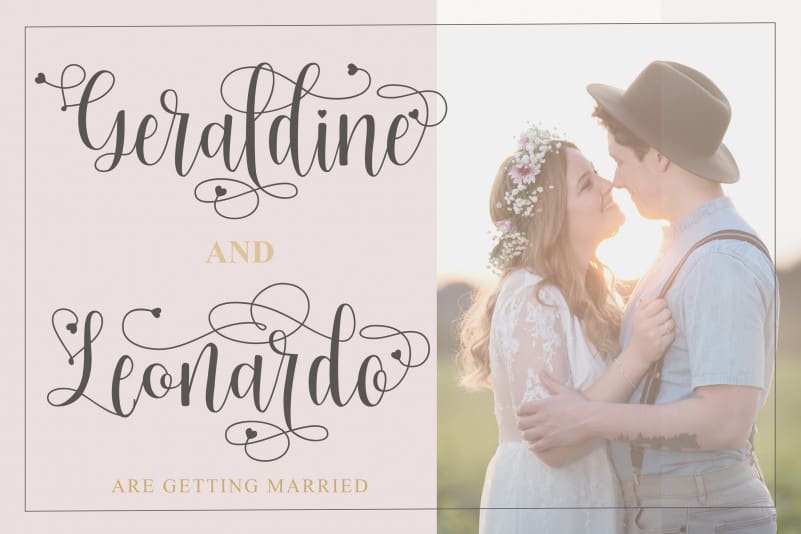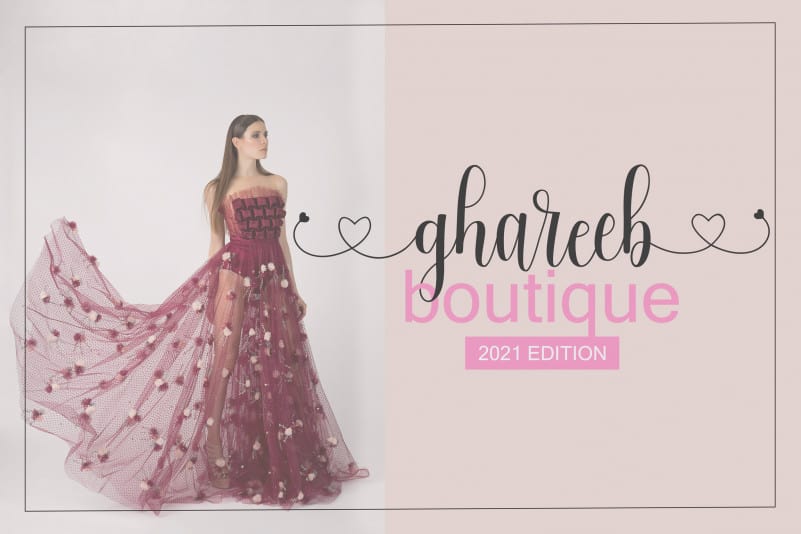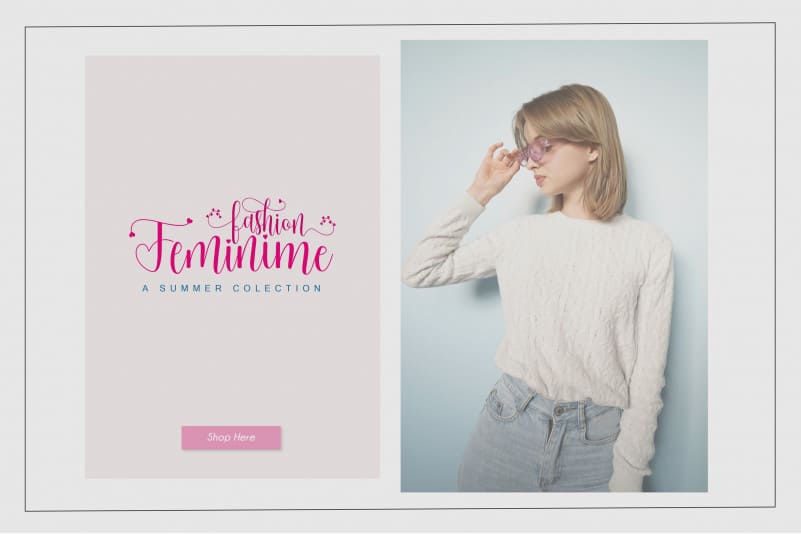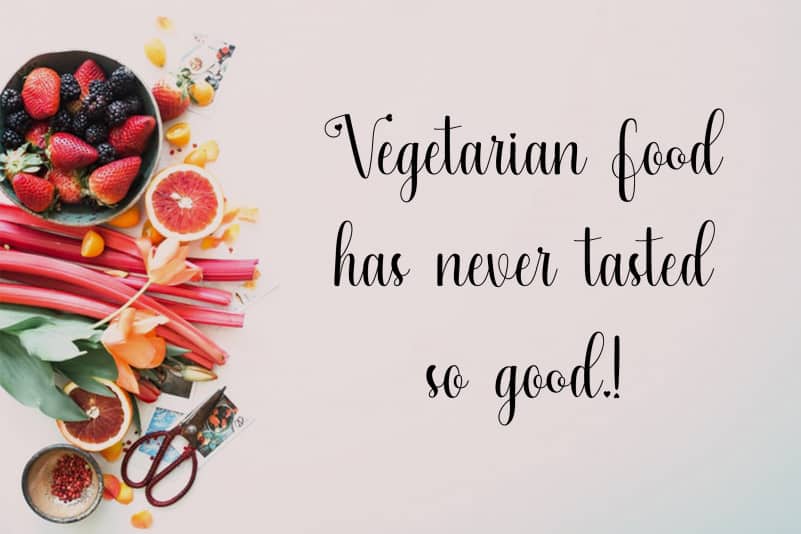
Hanifah Calligraphy Font
Hanifah Calligraphy Font is a great script font. wrapped in subtle strokes with a stunning decoration. This font can be changed as needed, whether the script is normal, bounce, casual, or without tail. because there are many alternatives to this font.
suitable for wedding invitations, quotes, labels, logos, social media posts, special events like birthdays, valentines, Christmas and anything else you need.
– 15 Alternate ( including normal, bounce, casual, flourishing, no tail )
– 1 Swash
– Ligature